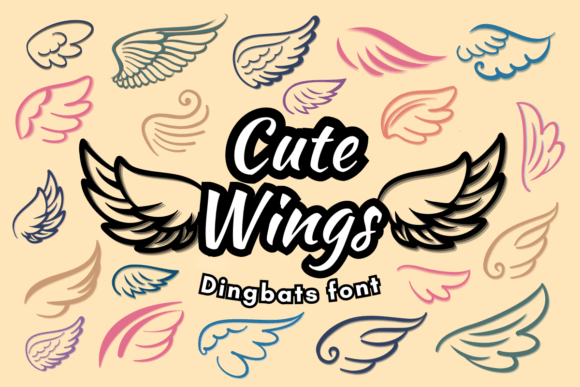
Cute Wings Font: Elevate Your Creative Projects with a Sketched Theme Style
In the world of typography, fonts play a crucial role in conveying the tone and personality of a project. For those seeking a unique and creative way to express themselves, Cute Wings Font is an excellent choice. This dingbats font features a sketched theme style that can add a touch of elegance and whimsy to various creative projects. In this article, we’ll explore the features and benefits of Cute Wings Font, and how it can enhance your wedding invitations, DIY crafts, decorations, logos, and other creative endeavors.
What is Cute Wings Font?
Cute Wings Font is a dingbats font that boasts a charming, hand-sketched design. Dingbats fonts, also known as symbol fonts, consist of graphical symbols, shapes, and icons rather than traditional alphabet letters. This font is perfect for adding a personal touch to your projects, making them stand out from the crowd. The sketched theme style of Cute Wings Font gives it a distinctive, hand-drawn look that is both elegant and playful.
Features of Cute Wings Font
Cute Wings Font offers a range of features that make it an excellent choice for creative projects. Some of its key features include:
- Unique Sketched Design: The font’s hand-sketched style gives it a distinctive, one-of-a-kind look that is sure to capture attention.
- Dingbats Symbols: As a dingbats font, Cute Wings Font consists of graphical symbols, shapes, and icons, making it perfect for adding visual interest to your projects.
- Elegant and Playful: The font’s design strikes a balance between elegance and playfulness, making it suitable for a wide range of creative projects.
Benefits of Using Cute Wings Font
Using Cute Wings Font in your creative projects offers several benefits, including:
- Enhanced Visual Appeal: The font’s unique design and sketched theme style add visual interest to your projects, making them more engaging and attention-grabbing.
- Personal Touch: Cute Wings Font allows you to add a personal touch to your projects, making them more distinctive and memorable.
- Versatility: The font’s elegant and playful design makes it suitable for a wide range of creative projects, from wedding invitations to DIY crafts and decorations.
- Time-Saving: With Cute Wings Font, you can quickly and easily add a professional-looking design element to your projects, saving you time and effort.
Creative Ways to Use Cute Wings Font
Cute Wings Font is a versatile font that can be used in a variety of creative projects. Here are some ideas to get you started:
- Wedding Invitations: Add a touch of elegance and whimsy to your wedding invitations with Cute Wings Font.
- DIY Crafts: Use the font to create custom labels, cards, and other embellishments for your DIY crafts.
- Decorations: Create custom signs, banners, and decorations for parties, events, and special occasions.
- Logos: Use Cute Wings Font to create a unique and memorable logo for your business or brand.
- Social Media Graphics: Add a personal touch to your social media graphics, such as Instagram posts and Facebook covers.
Tips for Using Cute Wings Font
Here are some tips for getting the most out of Cute Wings Font:
- Experiment with Different Sizes: Play around with different font sizes to find the perfect balance for your project.
- Combine with Other Fonts: Pair Cute Wings Font with other fonts to create a unique and visually appealing design.
- Use as a Accent Font: Use Cute Wings Font as an accent font to add visual interest to your project.
- Customize and Edit: Don’t be afraid to customize and edit the font to fit your project’s needs.
Cute Wings Font is a unique and versatile dingbats font that offers a range of creative possibilities. With its sketched theme style and elegant, playful design, it’s perfect for adding a personal touch to your wedding invitations, DIY crafts, decorations, logos, and other creative projects. Whether you’re a designer or a non-designer, Cute Wings Font is an excellent choice for anyone looking to elevate their creative projects and add a touch of whimsy and elegance.